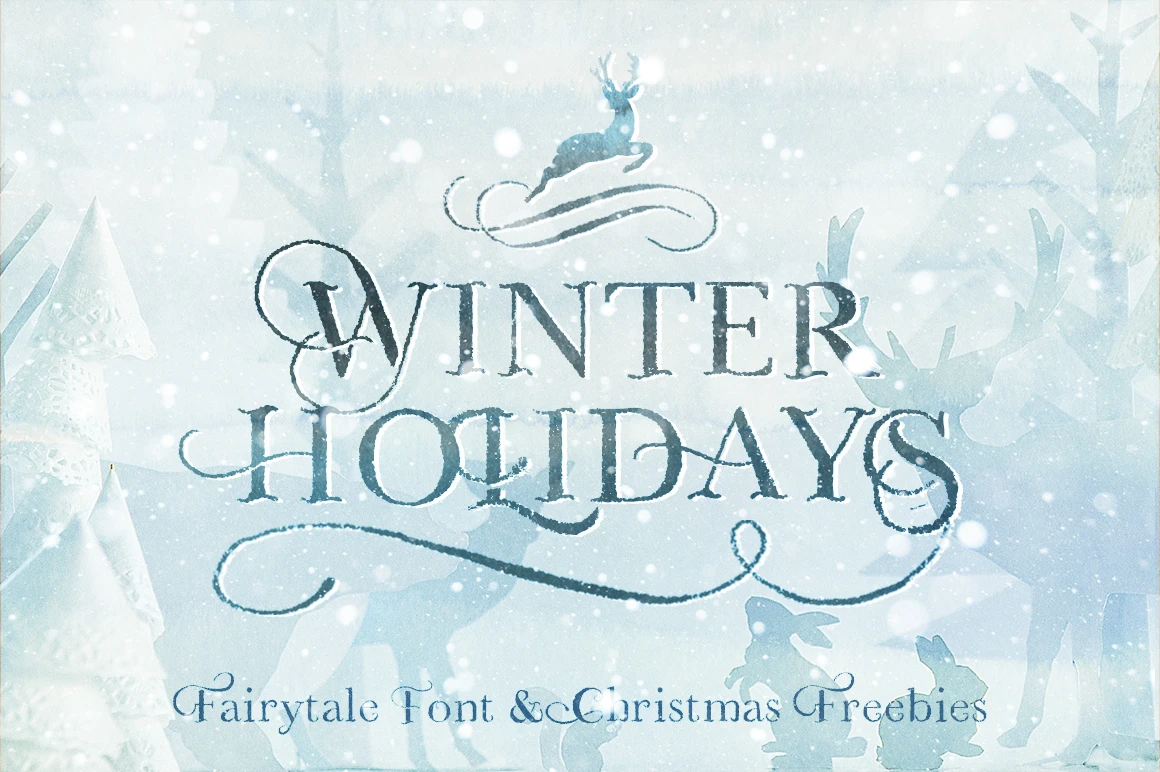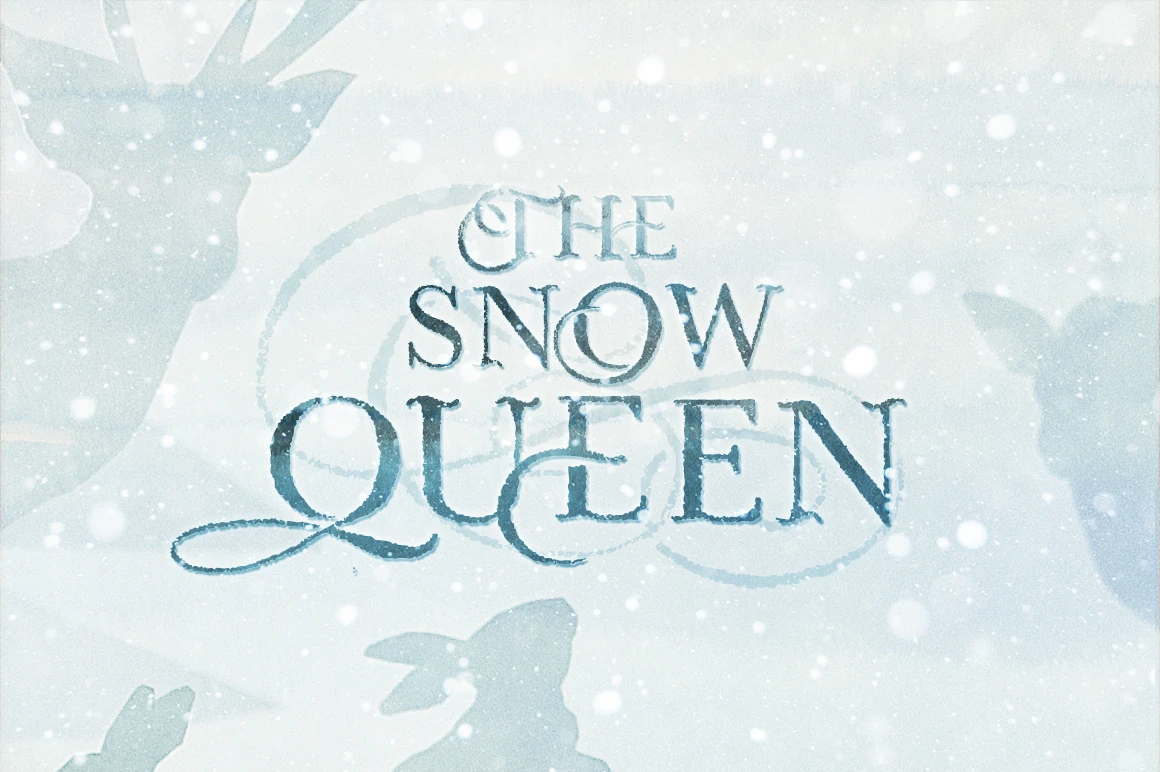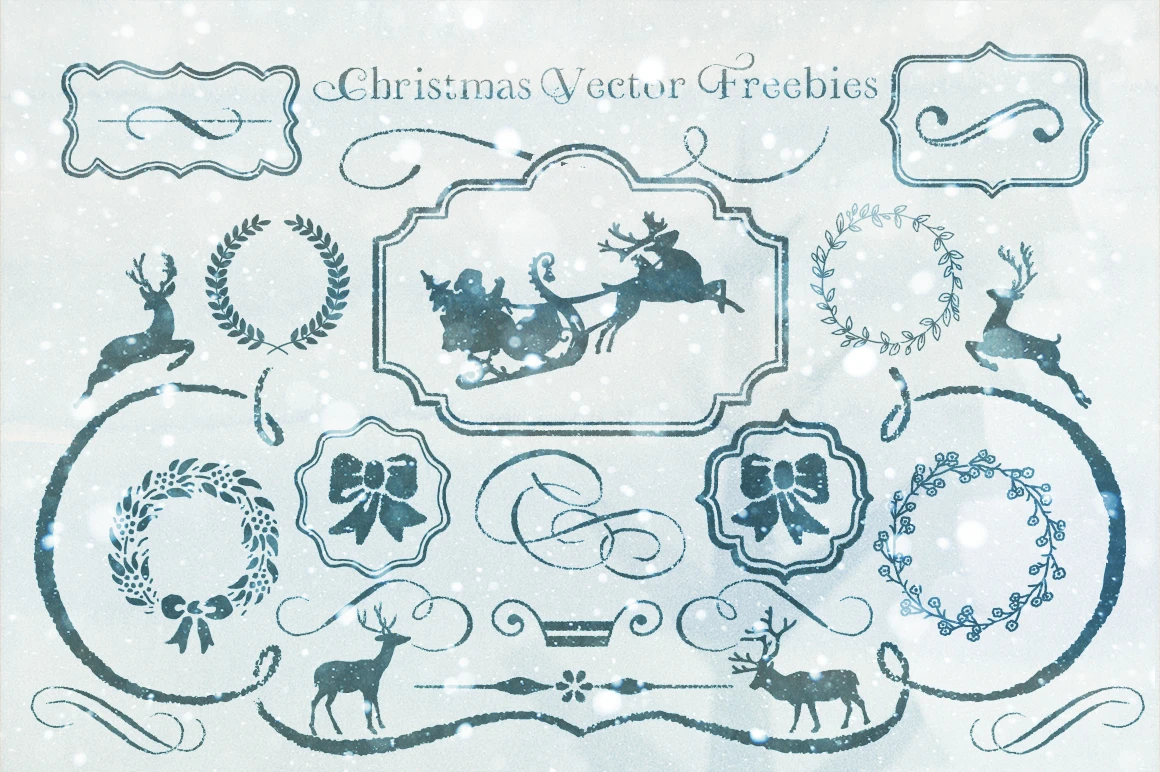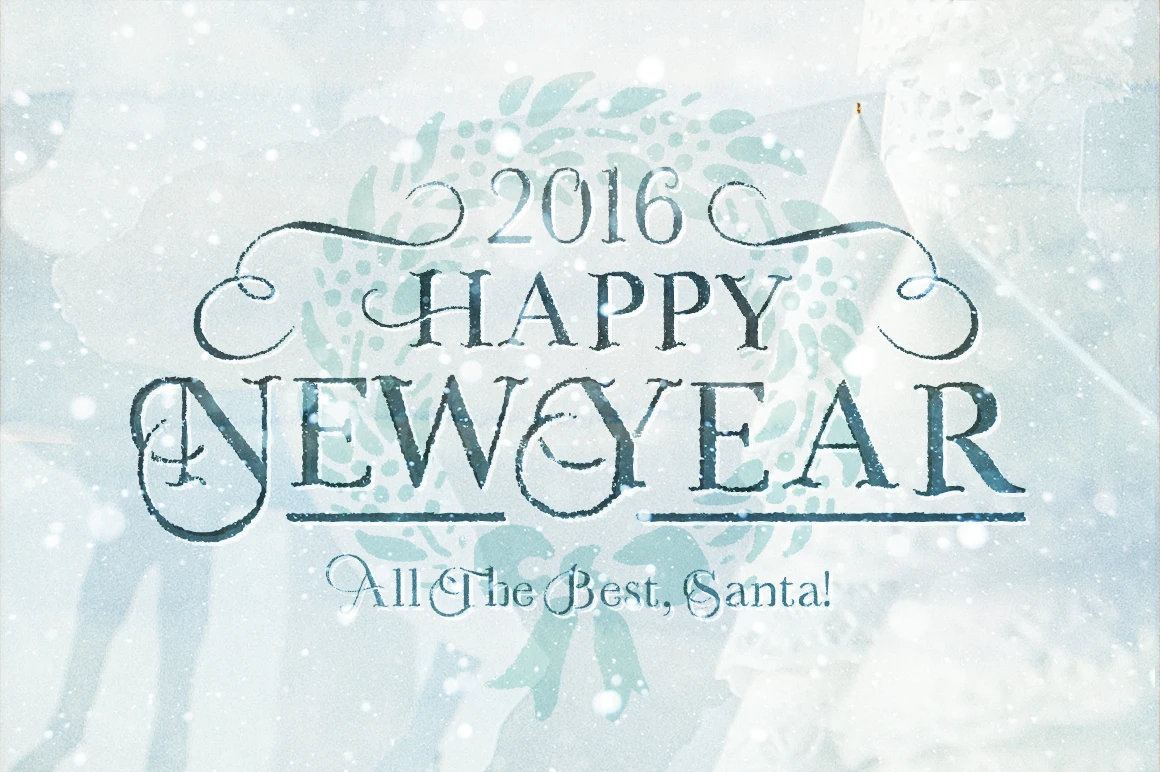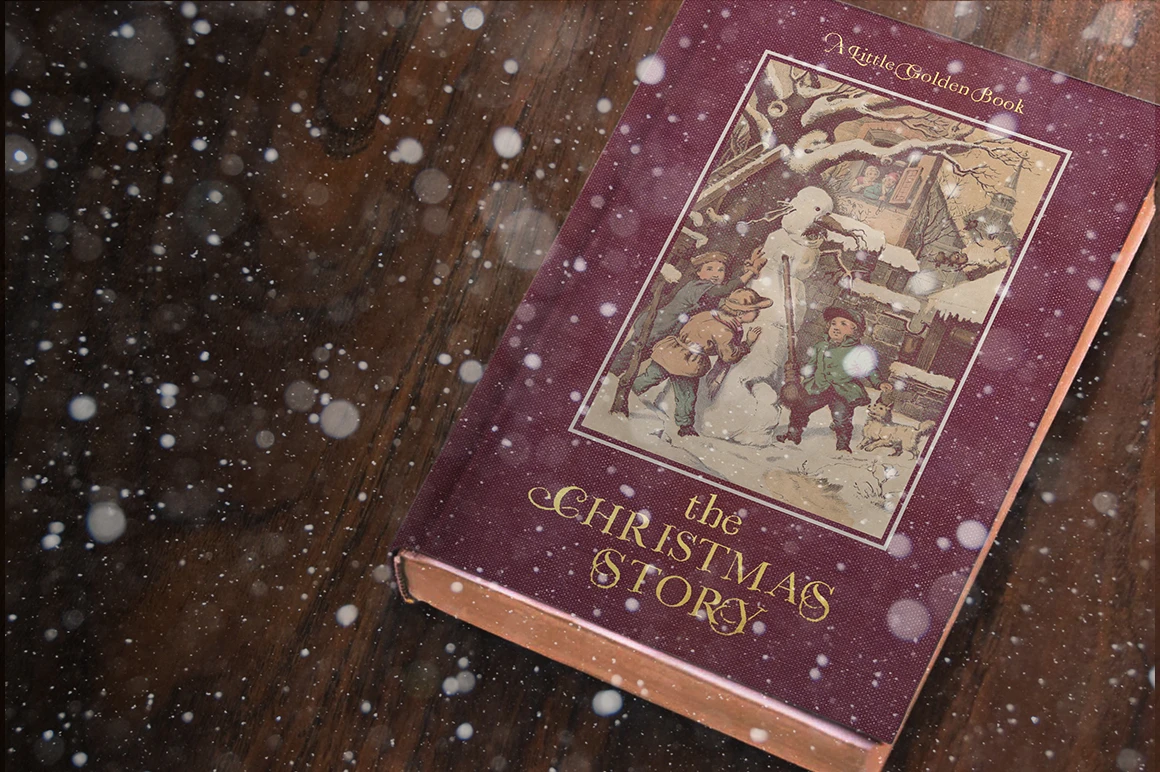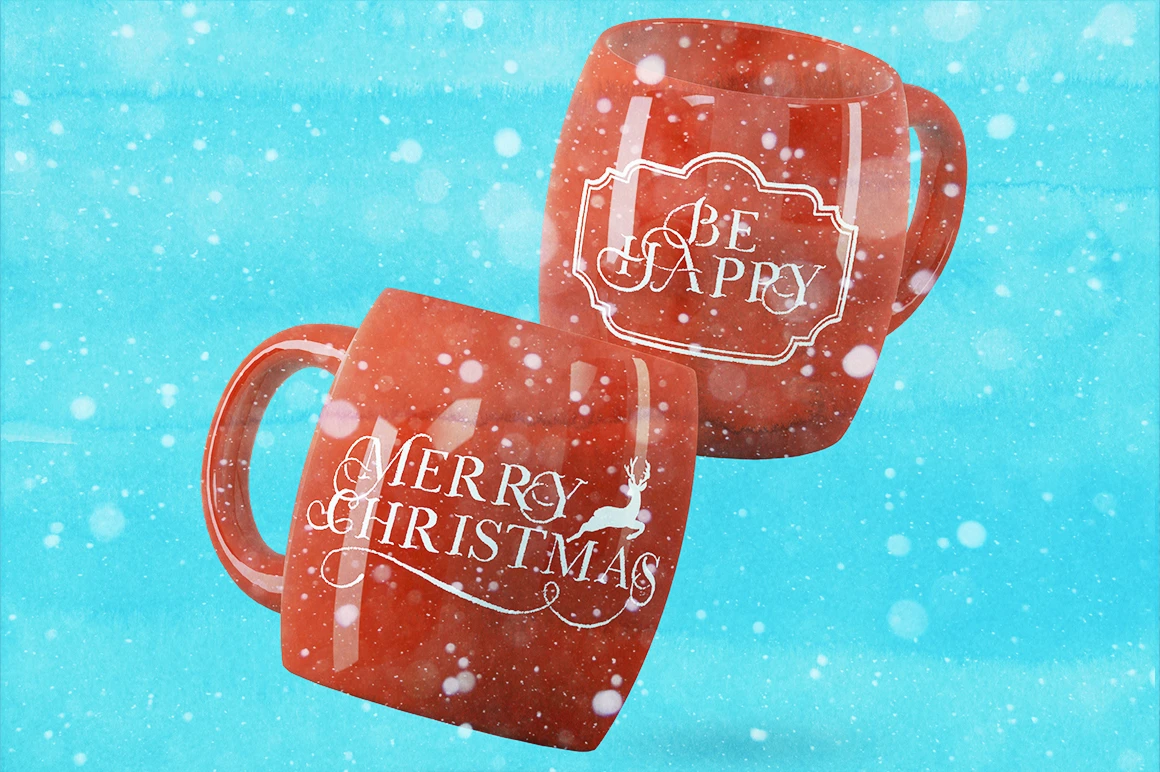
Winter Holidays Font Family
Winter Holidays is a cozy, handmade font duo created for the festive season. Designed to bring warmth and charm to holiday projects with a playful, fairytale-inspired style. Perfect for greeting cards, gift tags, posters, packaging, and seasonal branding. Comes with two whimsical font styles and a collection of vector extras to complete the holiday look. Made for adding cheer and creativity to all your winter designs.
Winter Holidays
Alternates
Winter Holidays font styles
Winter Holidays Alternates
Winter Holidays Regular